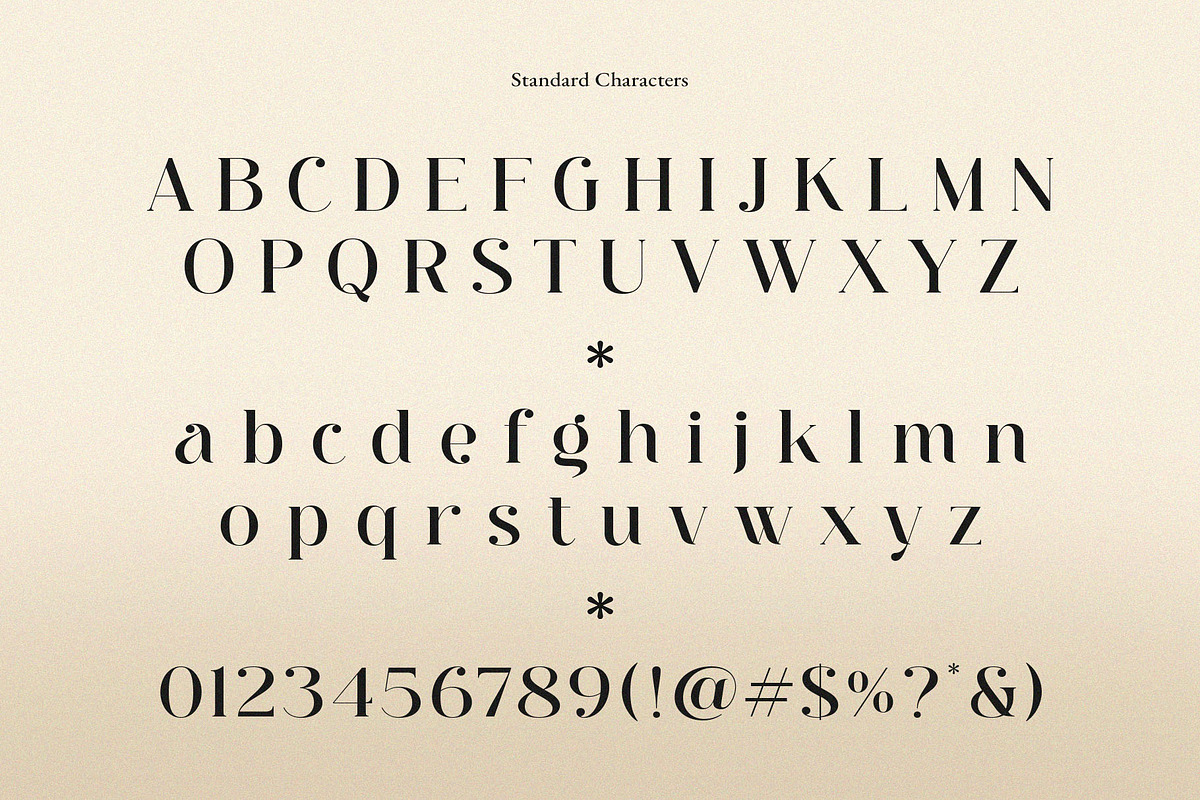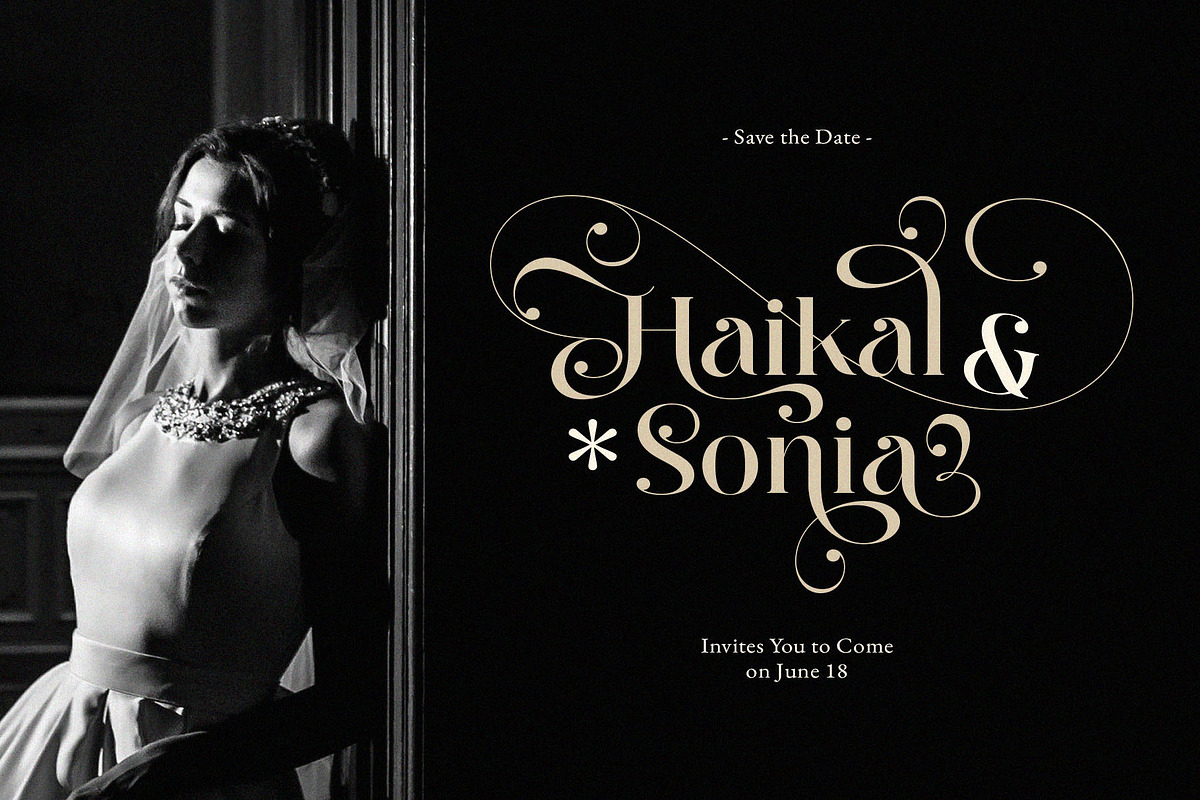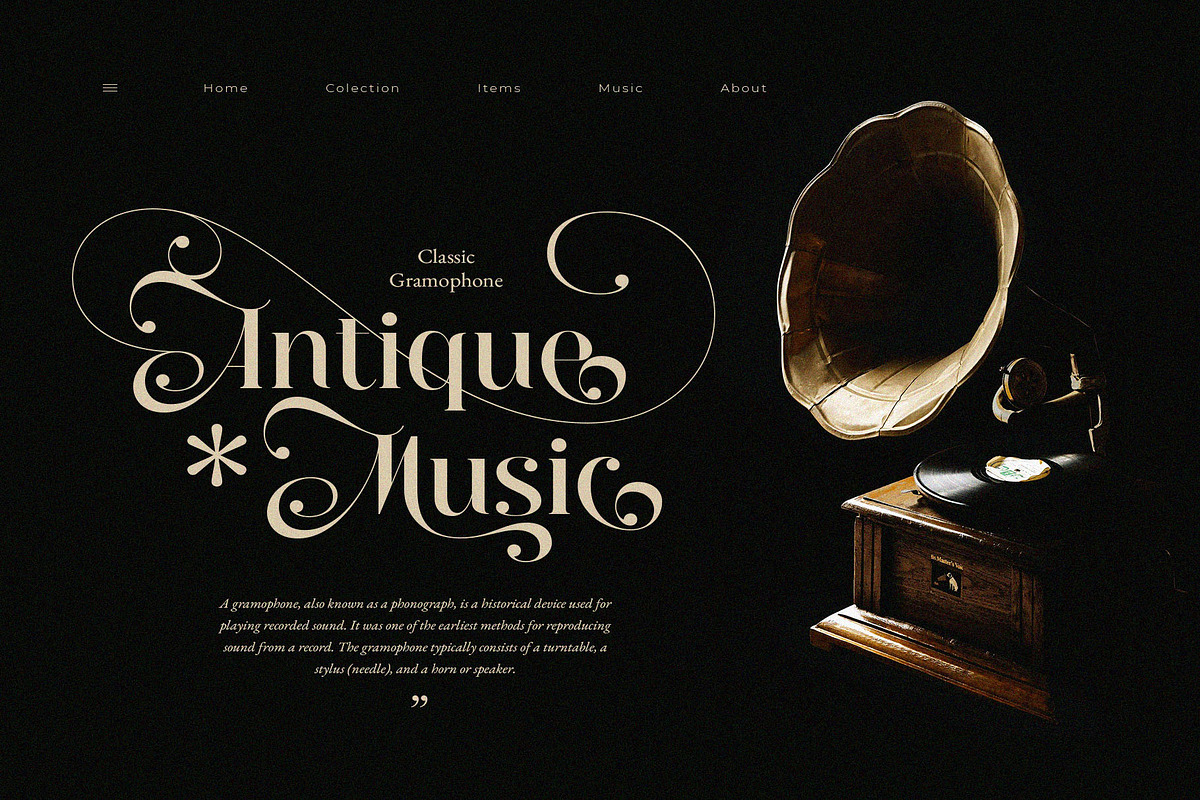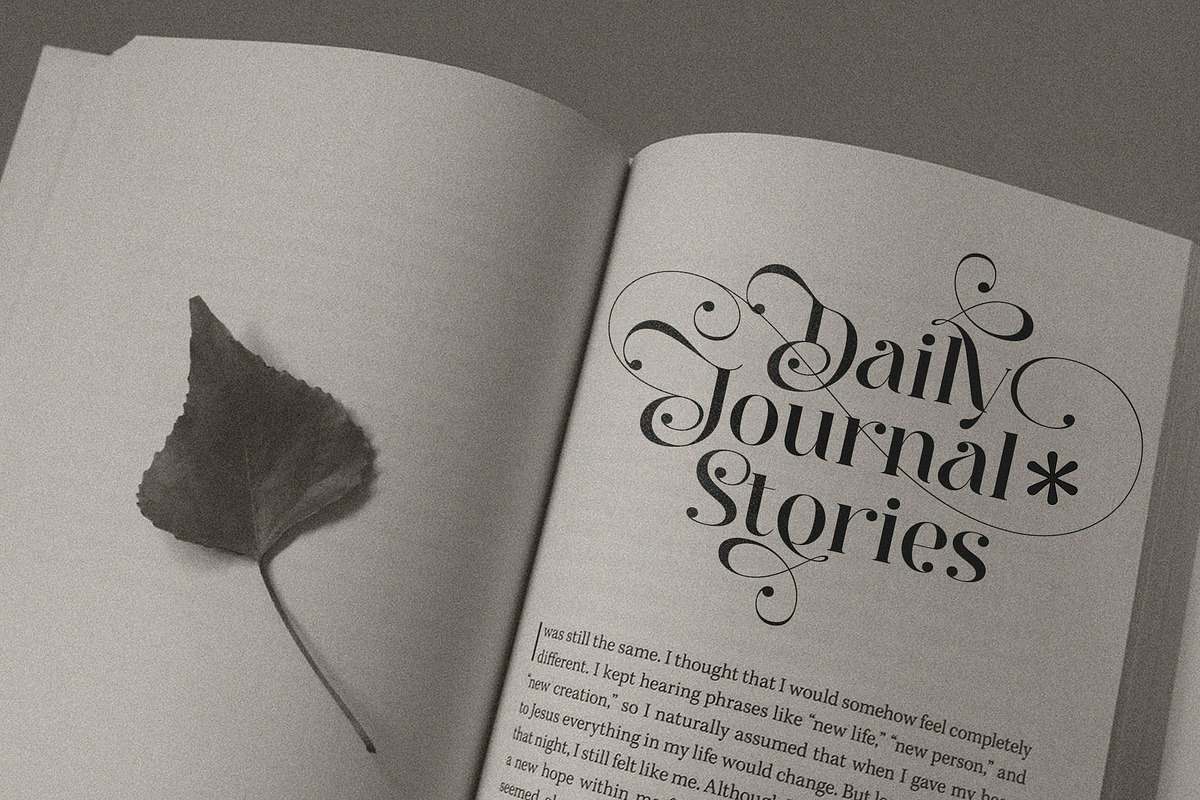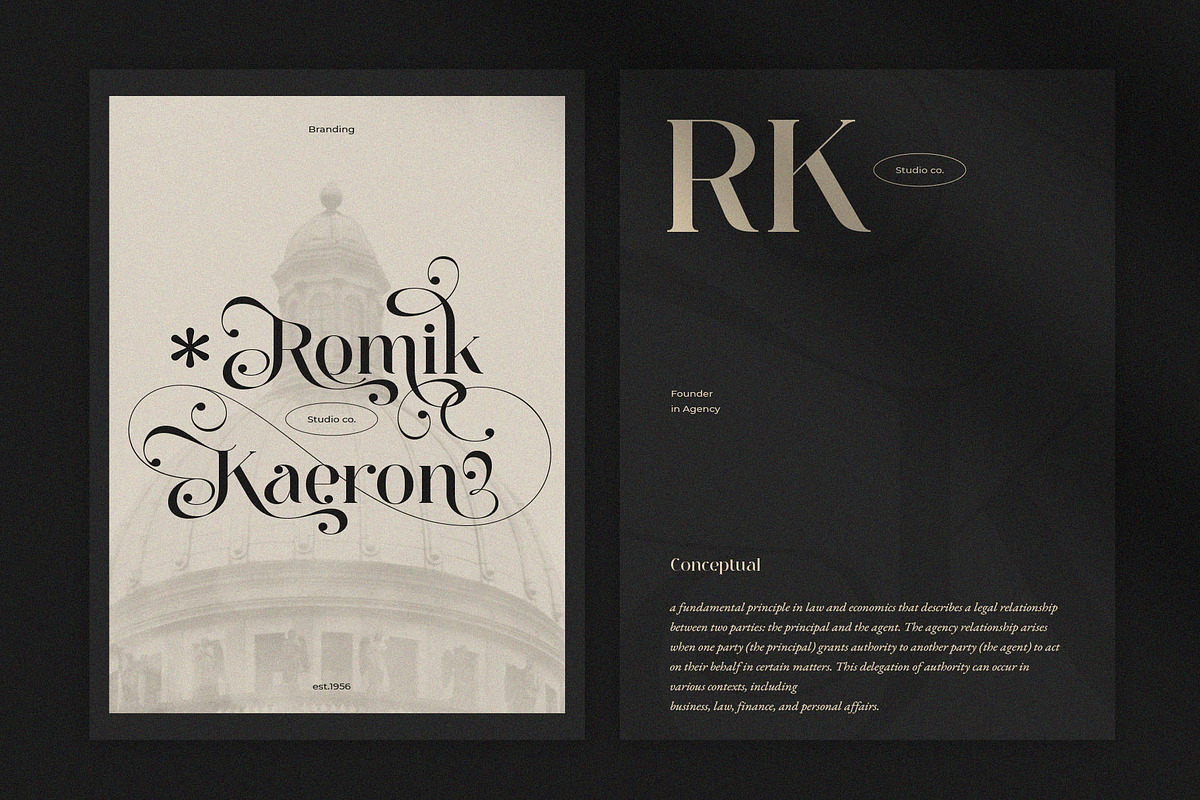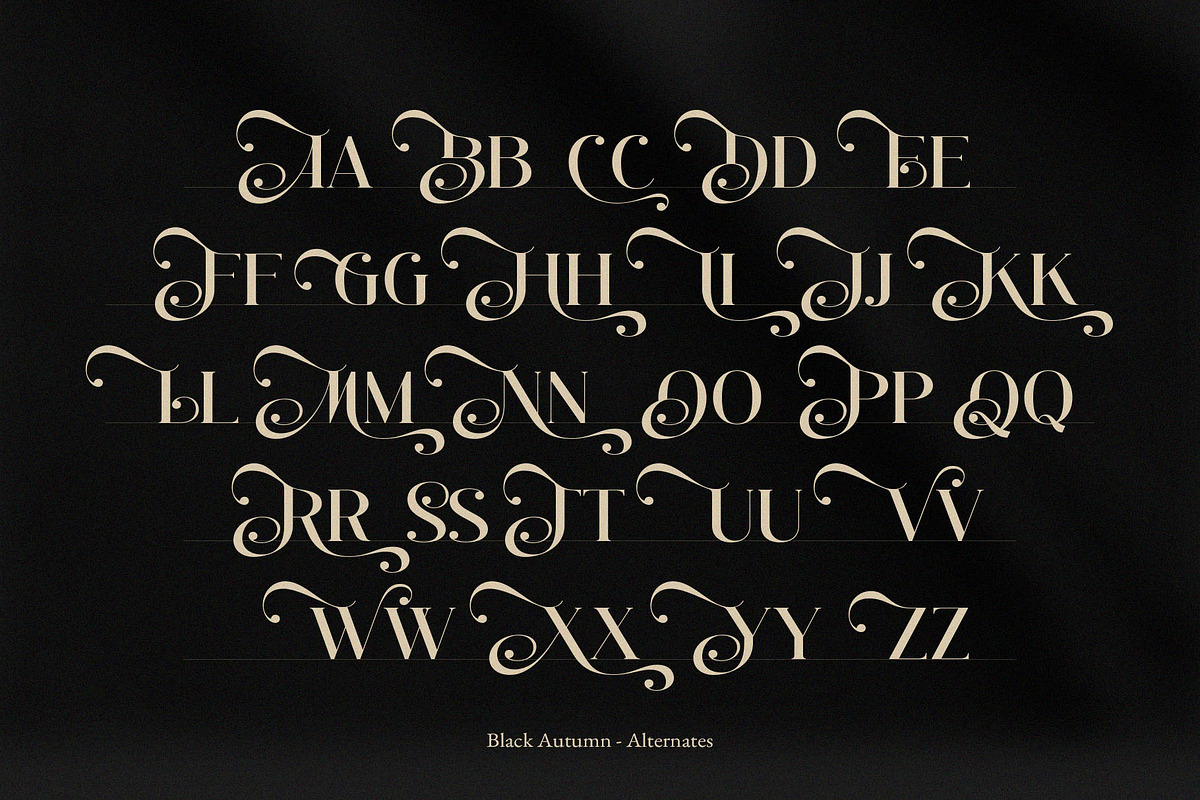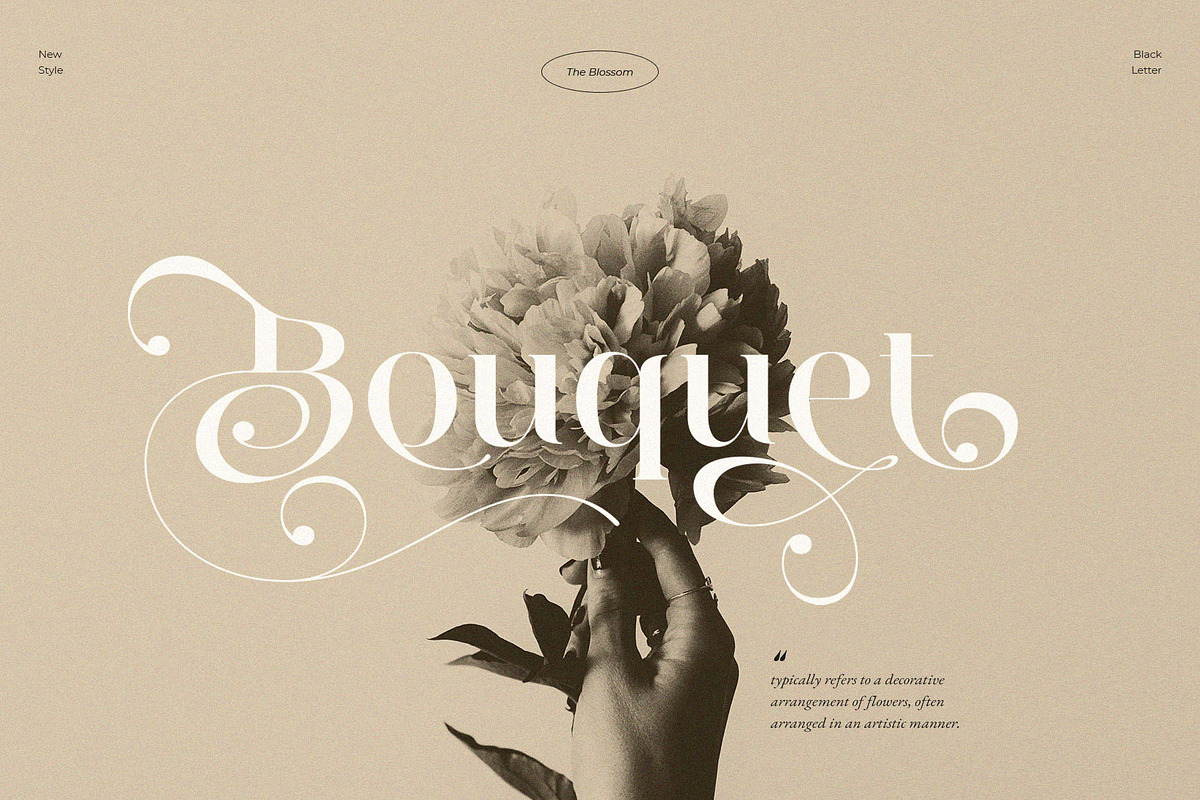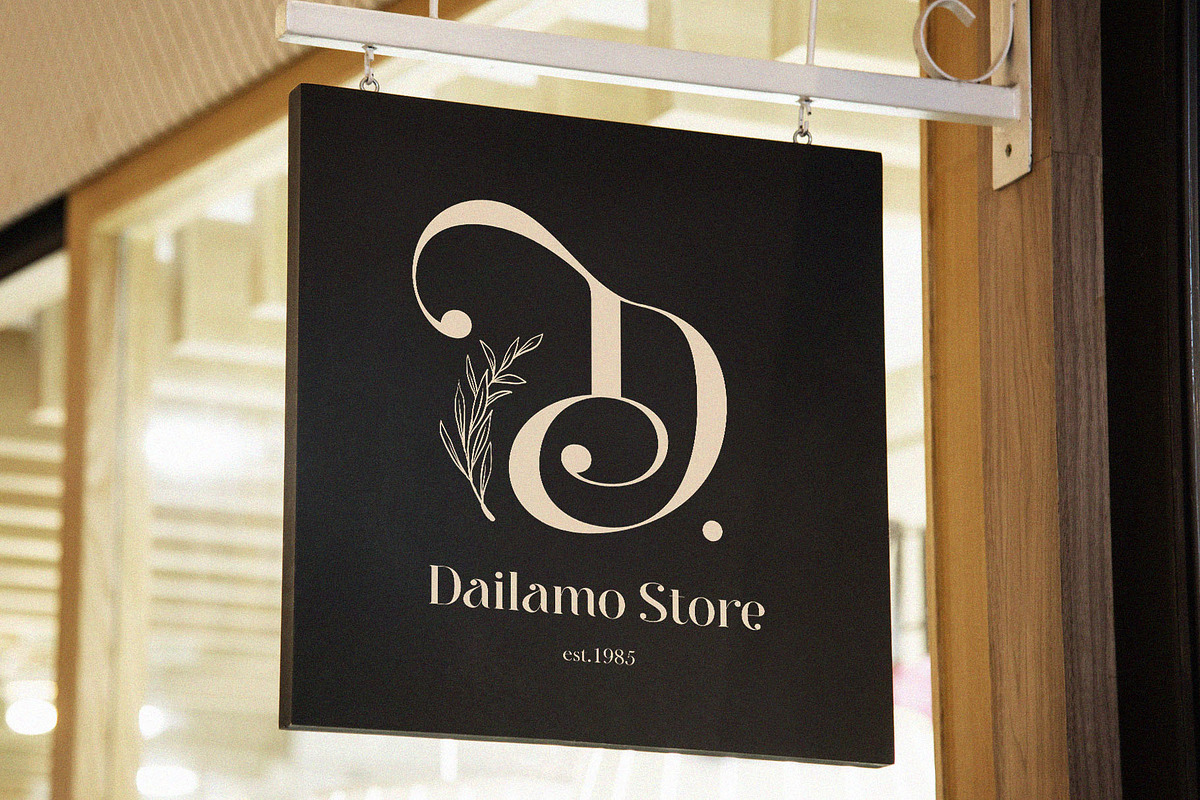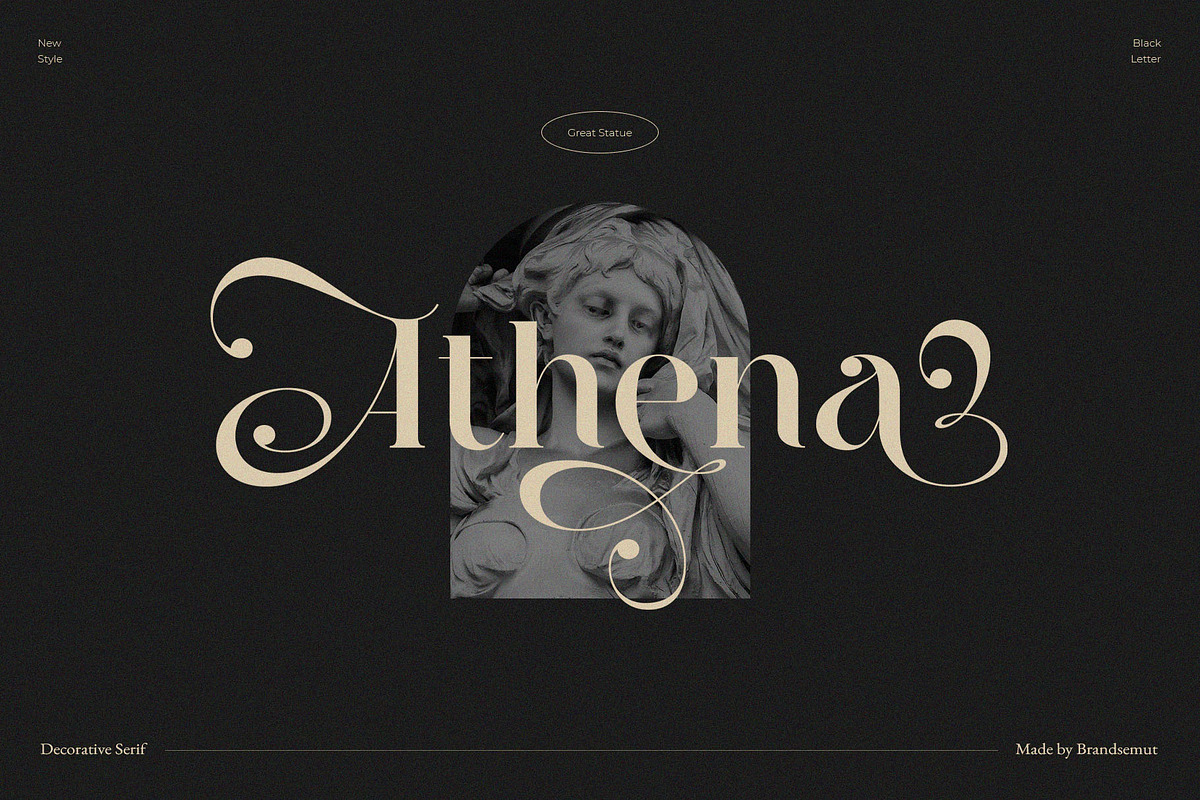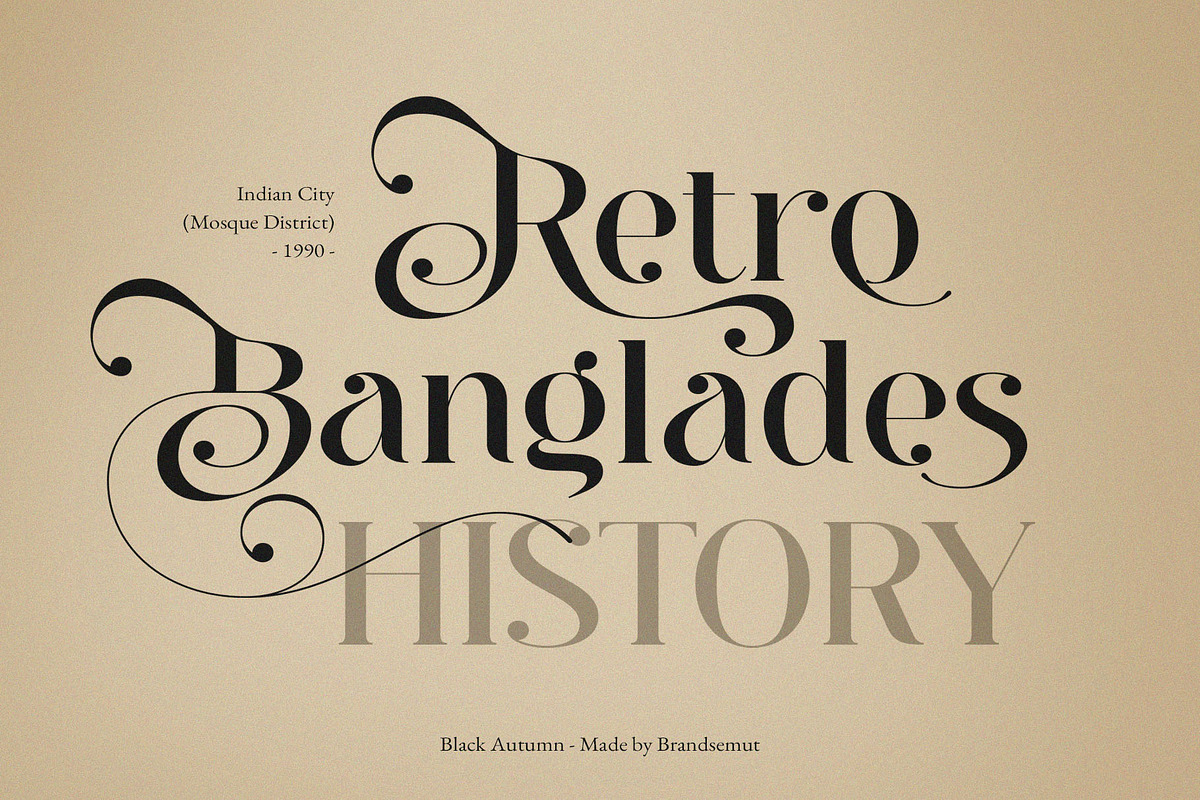
Black Autumn || Decorative Serif
Introducing Black Autumn Decorative Serif. Black Autumn is a elegant, classy and modern display serif, best used as a display for headings, logos, branding, magazines, product packaging and invitations. Black Autumn equipped with Ligature and many Alternates and come with clean lines and smooth curves give any project an extra touch of class.